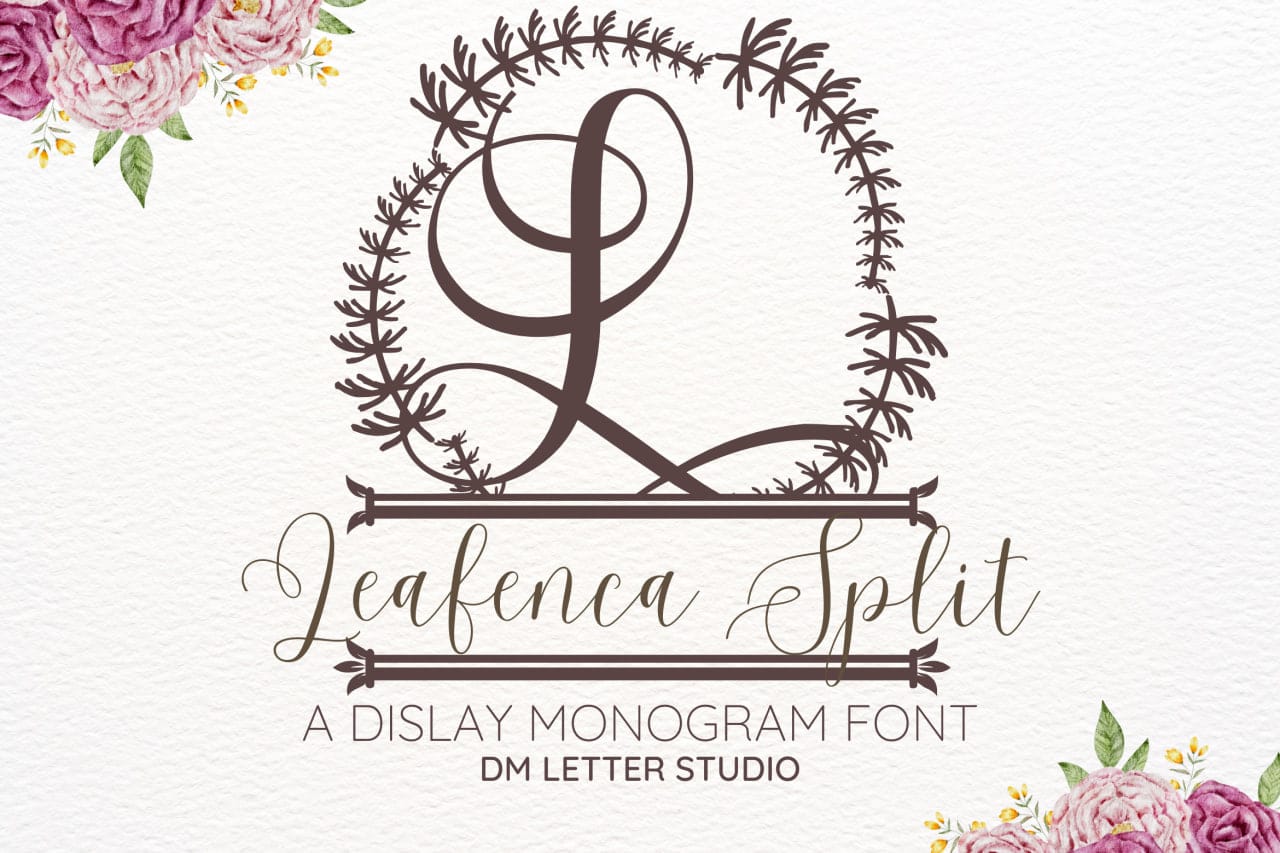
Meet Leafenca Split Monogram Font
Leafenca Split Monogram transforms initials into elegant leaf-inspired emblems with a clean split center for names or dates. The design blends soft botanical curves with balanced structure, creating monograms that feel natural, calm, and timeless. Each letter stays clear at any size, so small tags remain readable while larger designs look polished and refined. Use Leafenca Split for wedding suites, eco-inspired branding, stationery, keepsake gifts, and luxury packaging. As a result, your monograms feel personal, organic, and beautifully composed.
First, setup is fast in Canva, Photoshop, and Illustrator. Next, the clean outlines cut and print beautifully for foil stamping, embossing, debossing, engraving, laser cutting, vinyl, DTF, and sublimation. Then layouts come together faster because spacing and botanical proportions stay consistent across all initials. Moreover, the split center adds instant value, allowing names or dates to sit naturally within the monogram. Therefore, Leafenca Split is ideal for premium personalized designs across wedding and lifestyle collections.
Fast layouts with the Leafenca Split Monogram Font
Start with a bold initial and place the name or date in the split center. After that, keep extra text minimal so the leaf-inspired form remains the focus. Because Leafenca Split holds its shape at small sizes, labels, stickers, cards, and favor tags stay clean and readable. In addition, it pairs beautifully with soft serifs, light scripts, or clean sans serifs for supporting text. Finally, save color palettes like sage and cream, olive and ivory, eucalyptus and linen, or charcoal and soft gold to reuse across product lines.
Creative uses and quick wins
Wedding monograms, invitation covers, and ceremony signage
Place cards, table numbers, and favor tags
Logo seals, certificates, and boutique brand marks
Packaging labels for candles, soap, tea, perfume, and gift boxes
Design tips for Leafenca Split Monogram Font
Keep the monogram as the focal point and use a separate font for any text outside the split area. Also, give it enough breathing room so fine botanical details stay crisp at smaller sizes. For a premium finish, try foil stamping, embossing, or letterpress on thick or textured stock. Finally, export at 300 DPI for print and at 2× size for web so edges remain smooth everywhere.